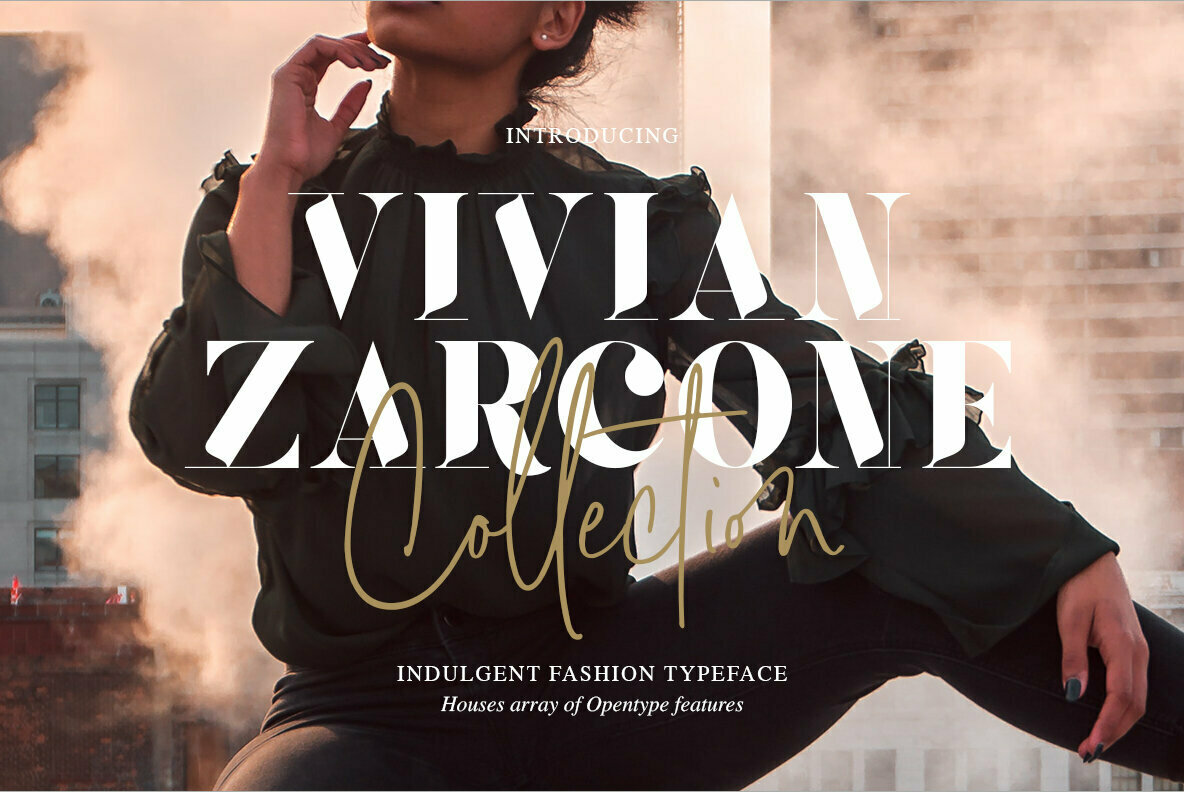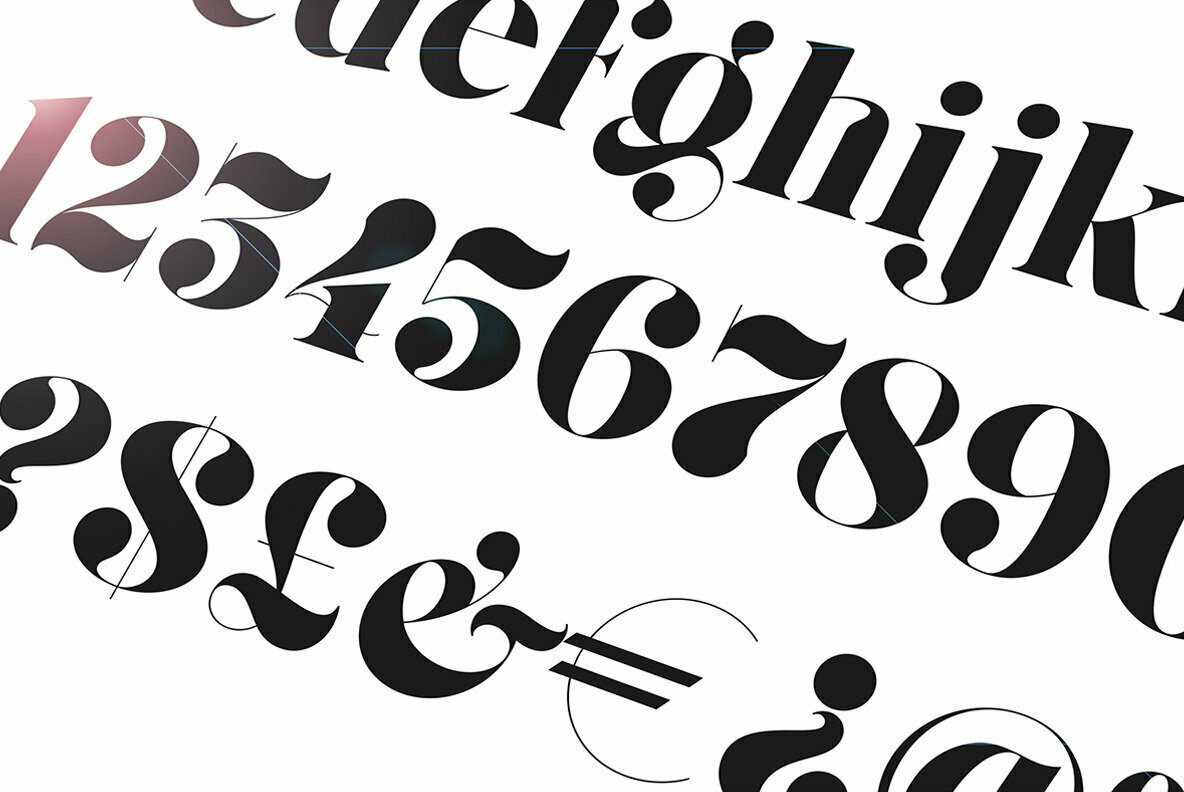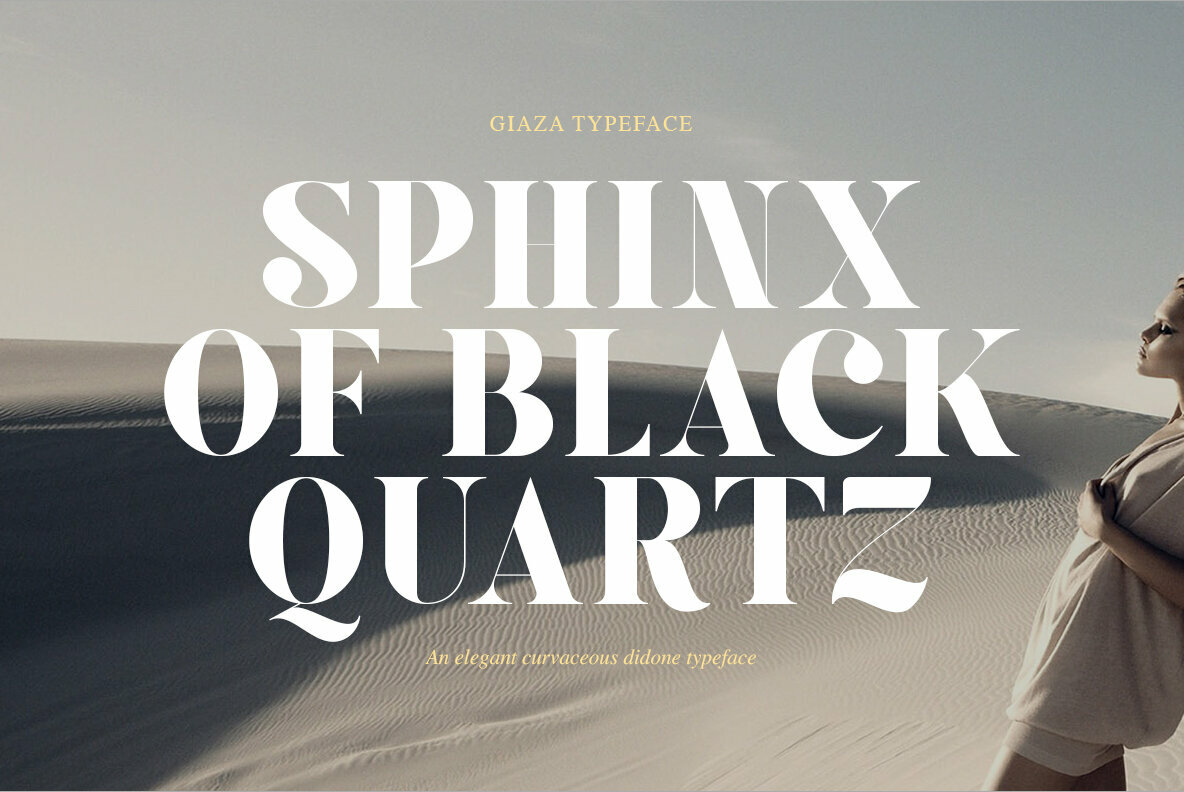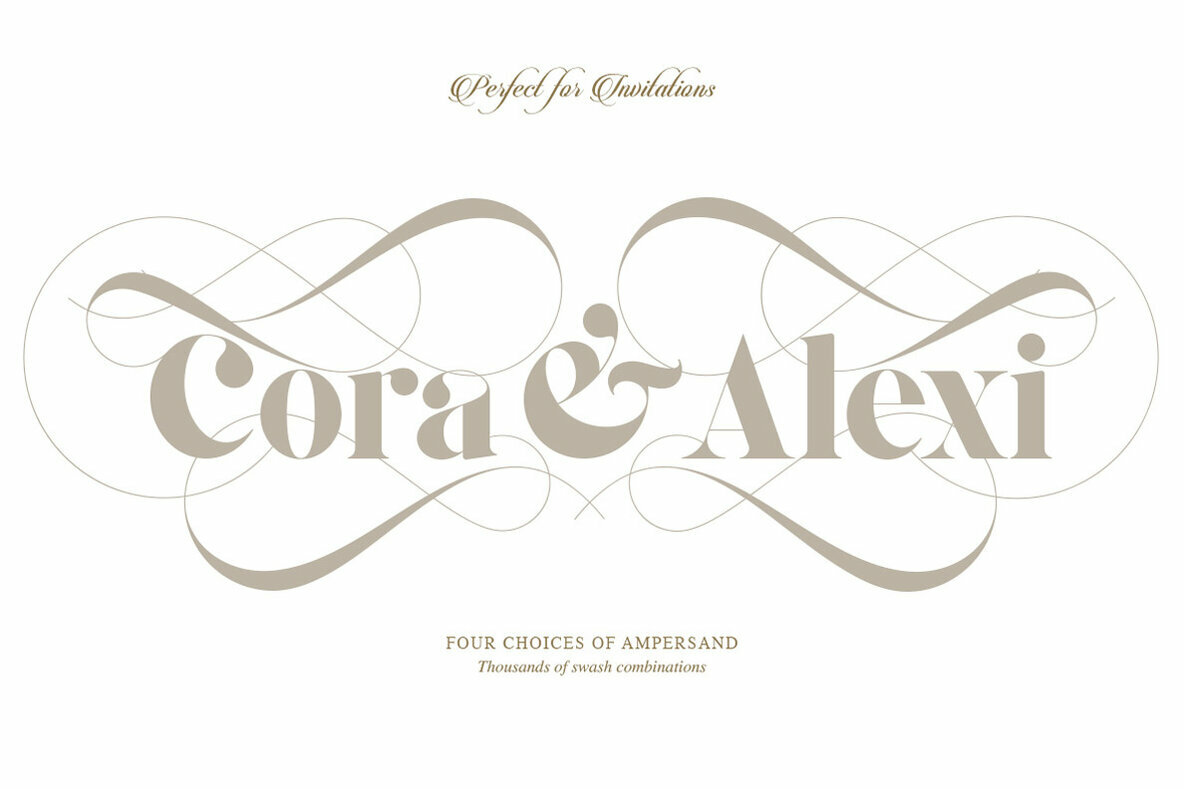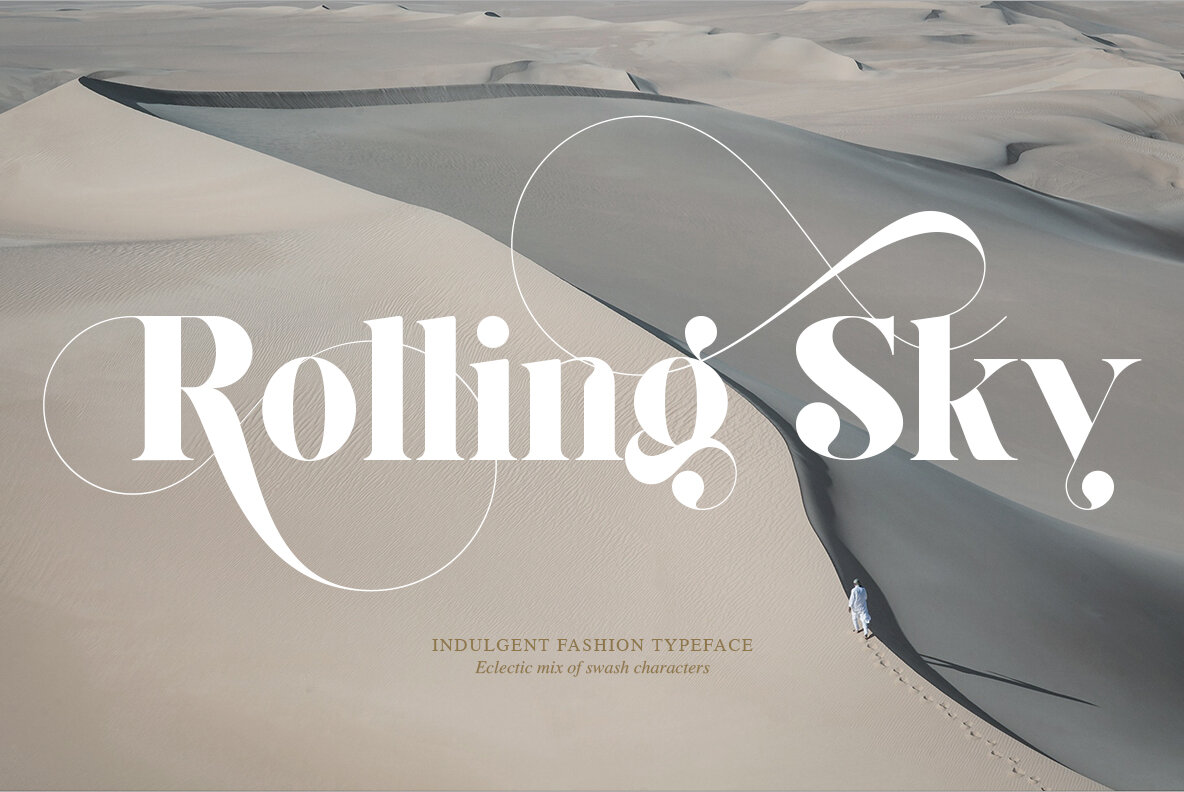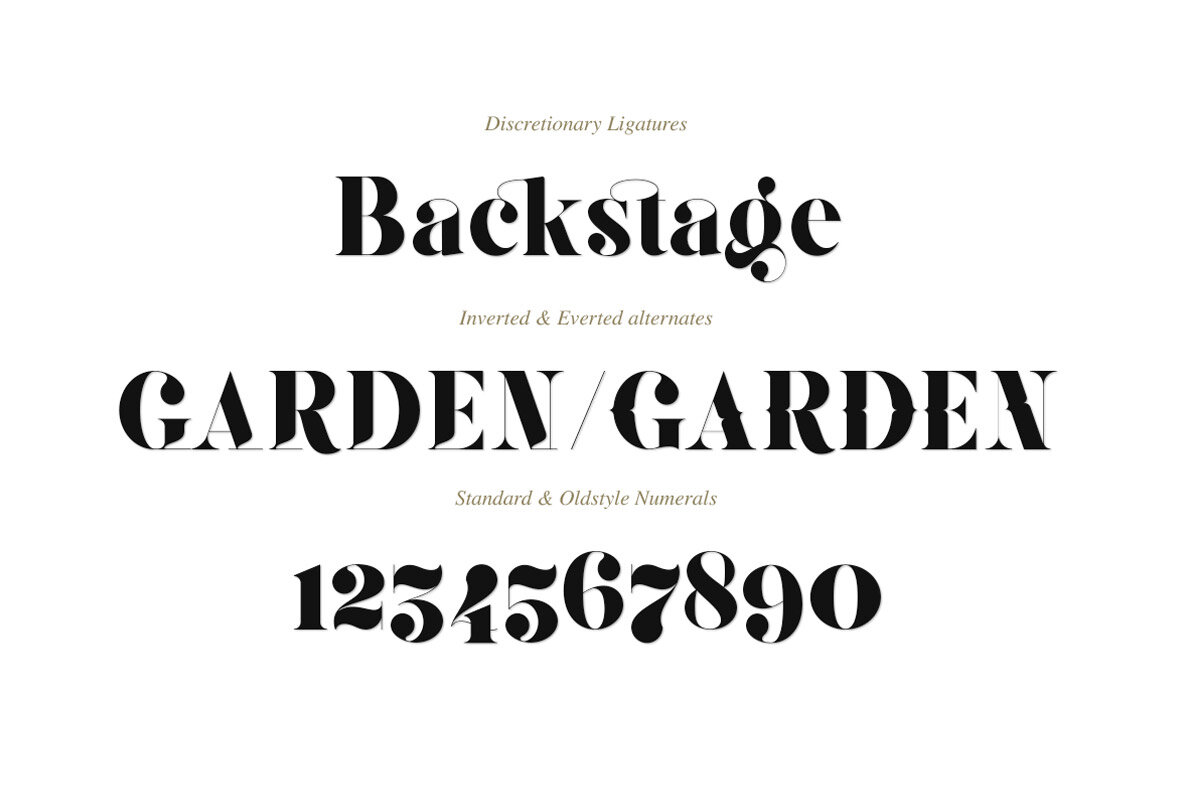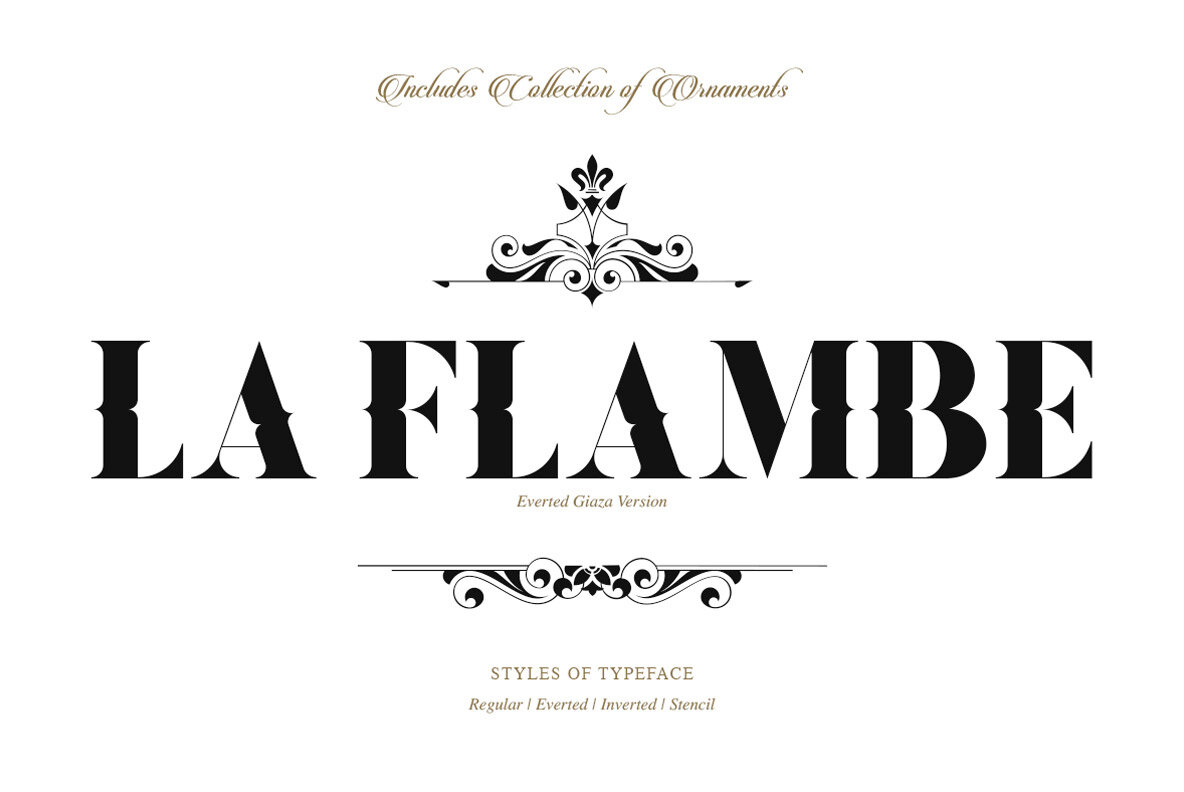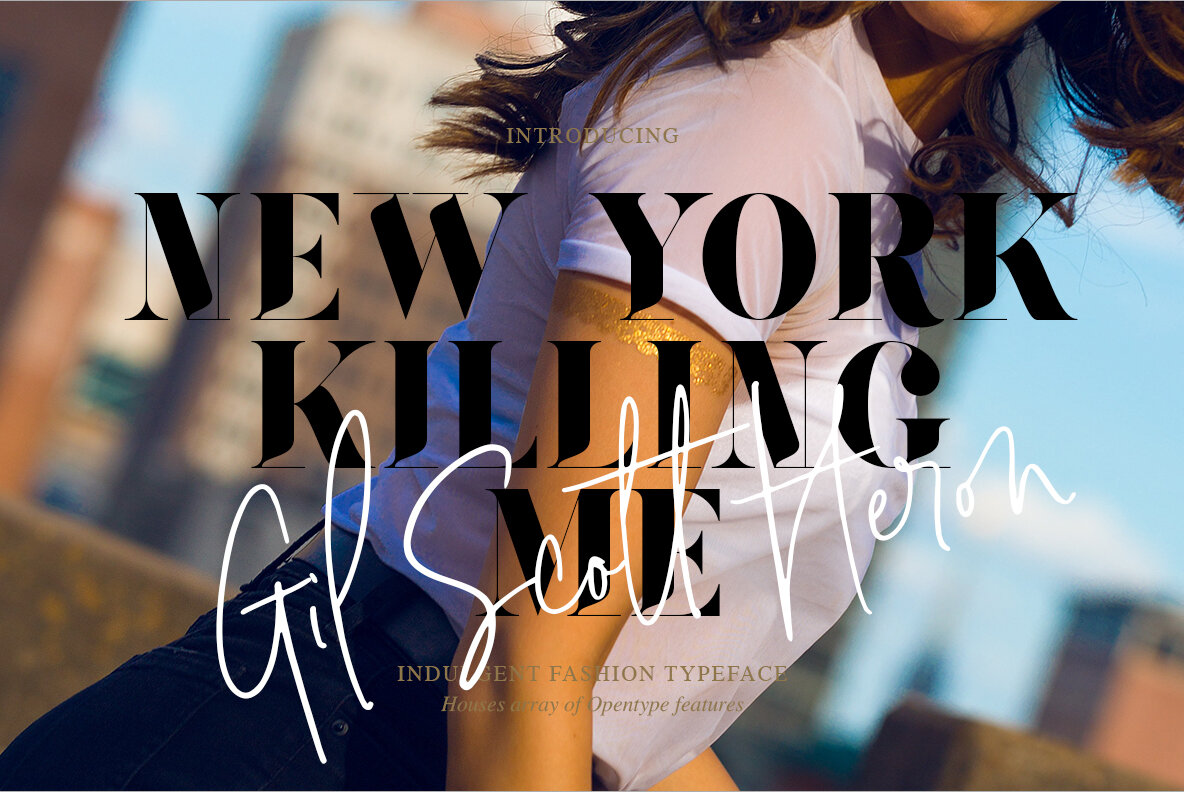
Giaza Font
Giaza
Giaza is a luxurious Didone typeface, most suitable as a Display font, the main focus was to include as many indulgent aspects as possible, and really make use of its high-contrast aesthetic. With smooth curves and subtle indentations, it's a very Fashion-conscious typeface.
The Opentype features include 190 decadent swashes and elegant Inverted/ Everted Alternates. Along with Stylistic Alternates, Standard Ligatures, Discretionary Ligatures, Regular and OldStyle Numerals, Fractions and Ordinals.